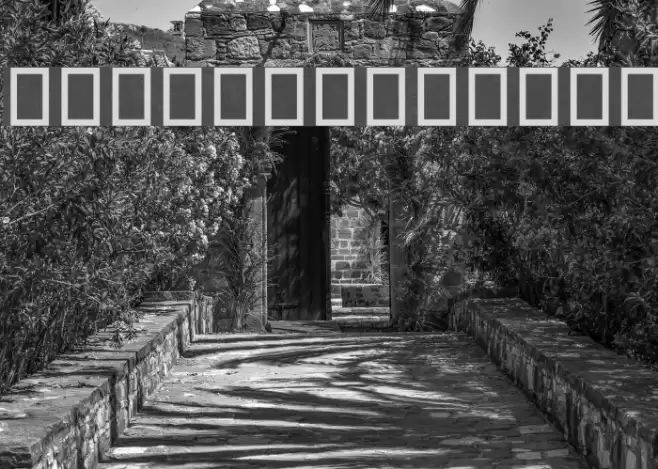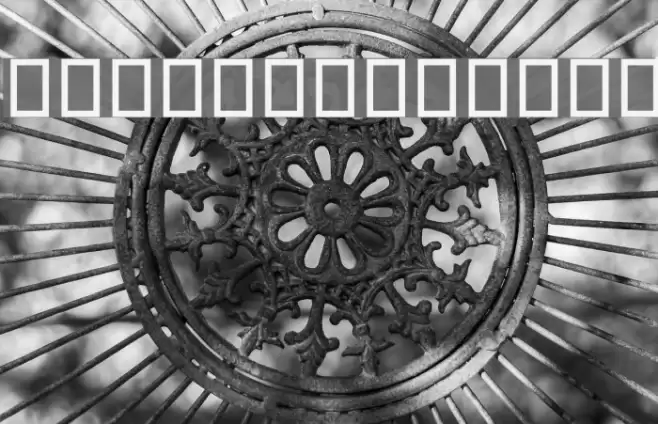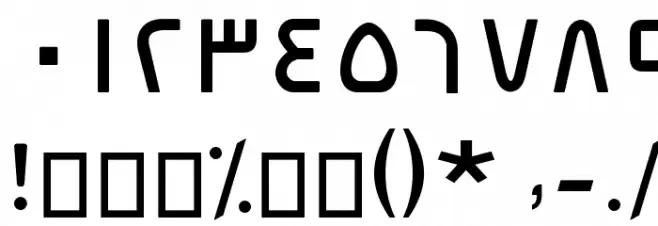
Kreshma Font
Kreshma Description
This font features a modern and clean design with geometric shapes and smooth curves. The characters are evenly spaced, providing a balanced and harmonious appearance. The uppercase letters are bold and assertive, while the lowercase letters maintain a consistent style that complements the overall aesthetic. Numbers and special characters are designed to match the font's sleek and contemporary look, making it versatile for various applications.
A modern, geometric font with smooth curves and balanced spacing from Uncategorized fonts.